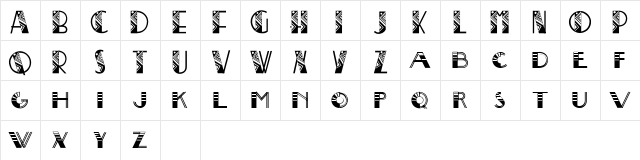
Decollection Normal
Design Context for Decollection
Decollection is a composed and adaptable typeface that performs quietly and consistently across a wide range of design contexts.